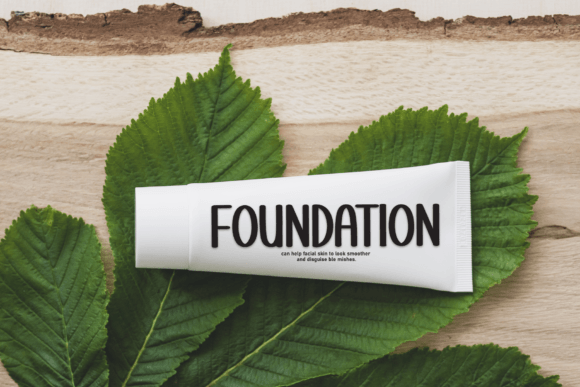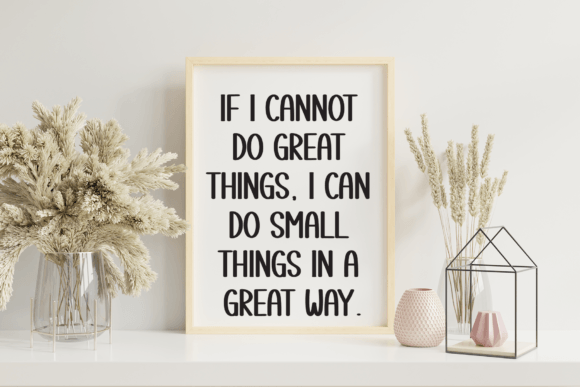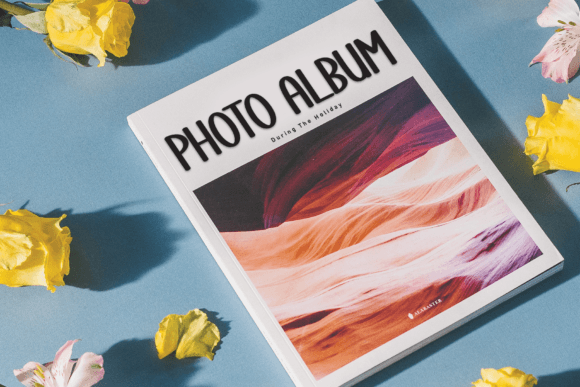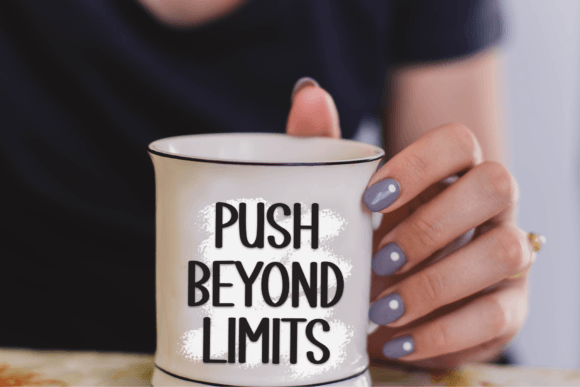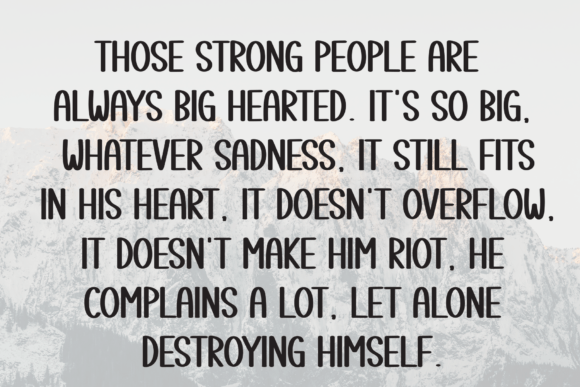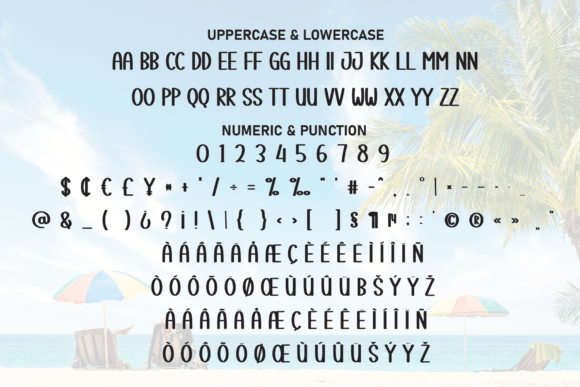
Introduction to Simple Vacation Font
Have you ever stared at a cluttered design, feeling overwhelmed and unsure where to start? For many creatives, this is a familiar feeling – especially when working on a new project. But what if you could simplify the process, and make your message stand out with clarity and approachability? Enter the Simple Vacation Font, a clean and modern sans-serif font that’s perfect for user interfaces, informative signage, and modern branding.
Key Features of Simple Vacation Font
- High-quality design for creative projects: Simple Vacation Font is perfect for adding a touch of elegance to your travel-themed designs.
- Perfect for travel and tourism projects: Simple Vacation Font is specifically designed to evoke a sense of adventure and freedom.
- Excellent for use in various design resources: Simple Vacation Font is an excellent addition to any designer’s collection, perfect for use in brochures, posters, and more.
Honest Review: Simple Vacation Font
As a designer, I’m always on the lookout for high-quality design resources to enhance my creative projects. I recently stumbled upon the Simple Vacation Font, and I must say, it’s been a pleasant surprise.
Here are some things that I think work well:
- ✨ Beautifully crafted characters: The font is well-designed, with clean and elegant lines that make it perfect for use in creative projects.
- ⚠️ Limited character set: The font only includes a limited set of characters, which might not be suitable for all design projects.
- ⚠️ Not ideal for large-scale use: While the font is great for small-scale use, I wouldn’t recommend using it for large-scale projects due to its relatively small character set.
Overall, I’m impressed with the Simple Vacation Font, and I think it’s a great addition to any designer’s toolkit. It’s perfect for small-scale creative projects and can add a touch of elegance to your designs. While it has its limitations, I believe it’s a high-quality design resource that’s definitely worth checking out.
To get the most out of the Simple Vacation Font, try using it with a transparent background to create a seamless design. You can also experiment with different font sizes and styles to find the perfect look for your creative project.
The Simple Vacation Font is perfect for a variety of creative projects, including travel brochures, advertisements, and social media graphics. Its high-quality characters and styles make it a great choice for any project that requires a professional and eye-catching look.